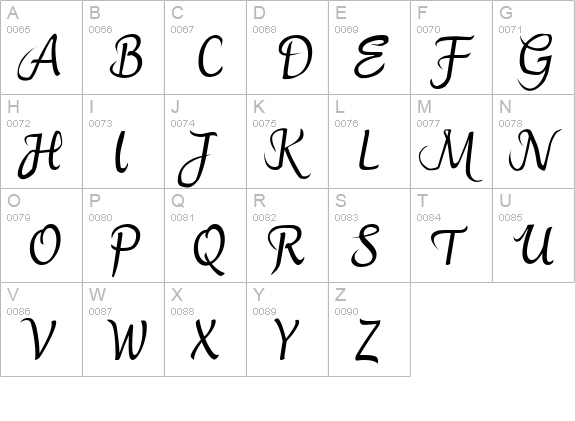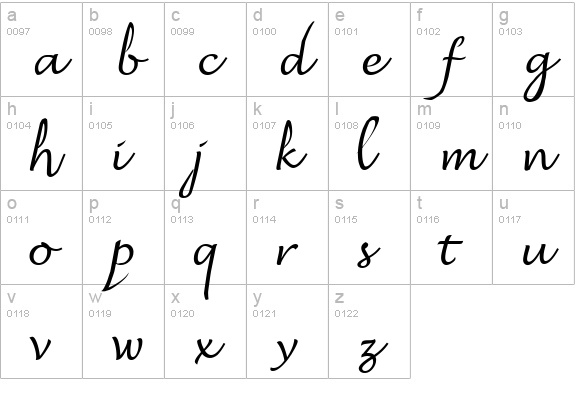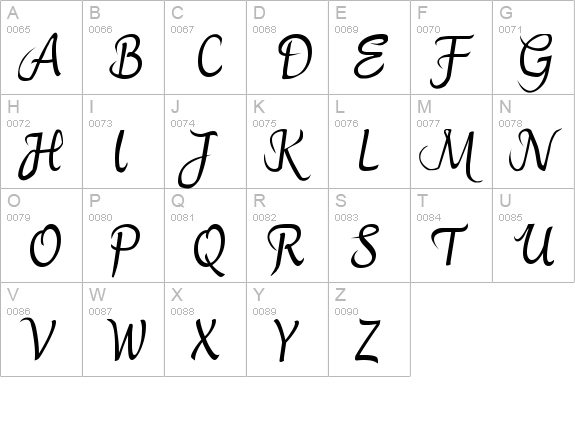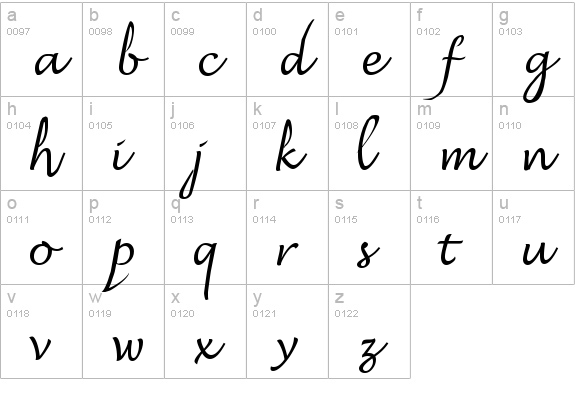
GrevinnansItalic Font Details
GrevinnansItalic font is a stylish and elegant typeface that exudes sophistication and charm. Its sleek and slender letterforms are perfect for adding a touch of class to any design project. The italicized style of GrevinnansItalic font adds a sense of movement and fluidity, making it ideal for creating eye-catching headings and titles. What sets GrevinnansItalic font apart is not only its timeless design, but also the fact that it is available for free download at FontsMarket.com. This means that you can easily access and use this exquisite font in your projects without any cost. Don't miss out on the opportunity to elevate your designs with the beauty and grace of GrevinnansItalic font – download it today and let your creativity shine!